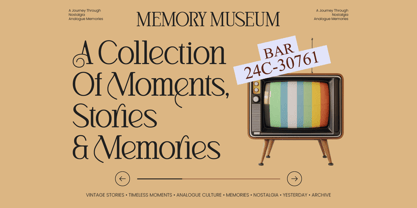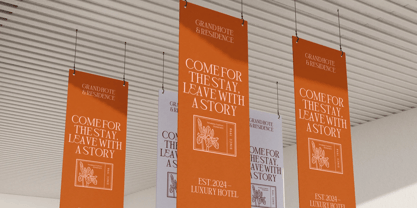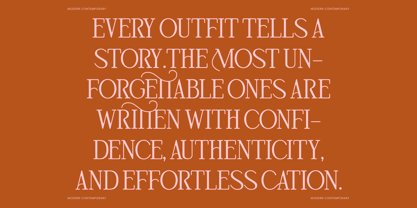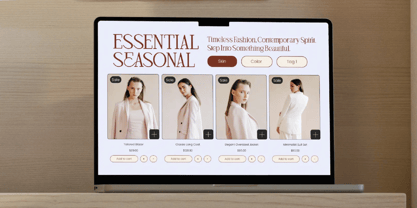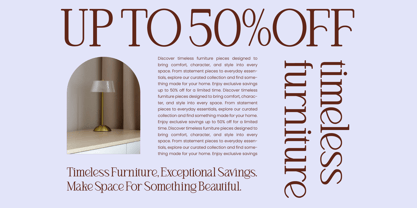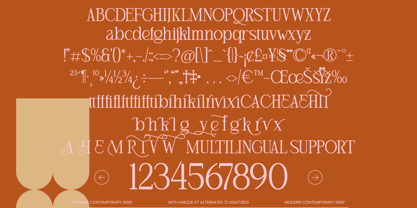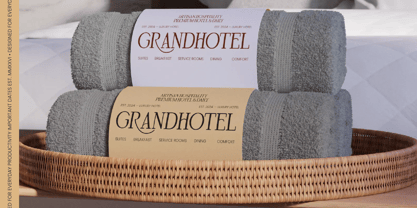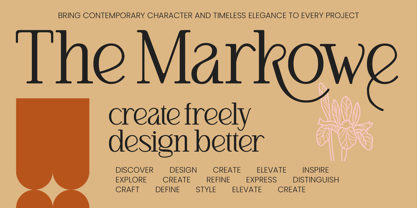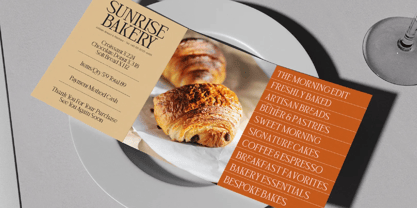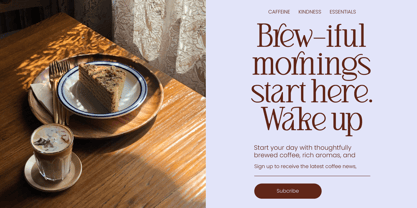
The Markowe
The The Markowe Font Family was designed by Heru Utama Putra and published by Timelesstype Studio. The Markowe contains 2 styles and family package options. More about this family
The Markowe captures the essence of sophisticated design, weaving together classic elegance with a bold, contemporary spirit that commands attention. It is a refined type collection designed to elevate your visual storytelling to a level of timeless luxury.
Inspired by the delicate balance between structural integrity and fluid grace, this typeface reflects the organic beauty of architectural lines and botanical curves. Its inspiration stems from high-end editorial layouts and the pursuit of a visual identity that feels both established and fresh.
This modern serif display is engineered for maximum luxury typography appeal, offering a high-contrast serif profile that ensures a high-end branding impact. Every stroke in this editorial font is meticulously crafted to provide a sense of prestige and modern sophistication.